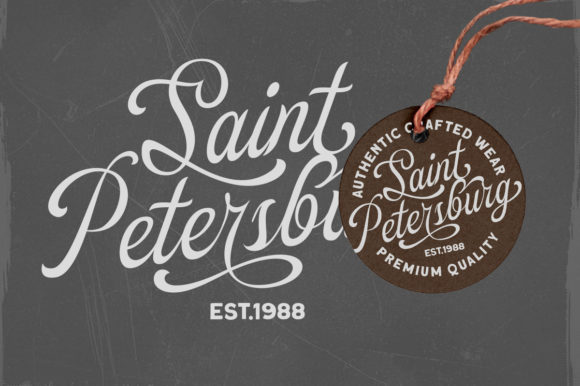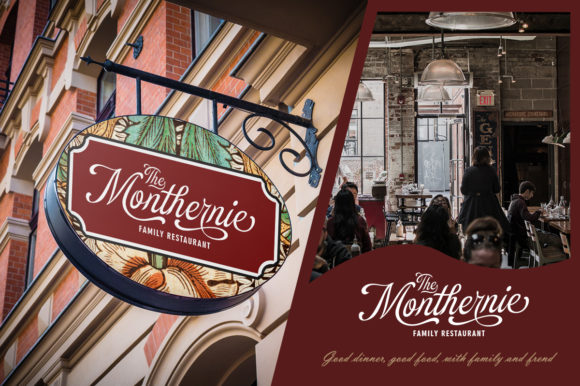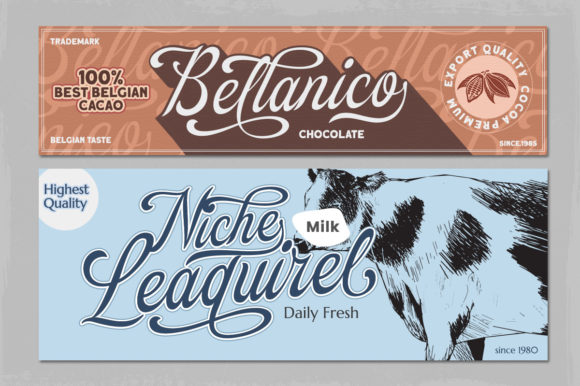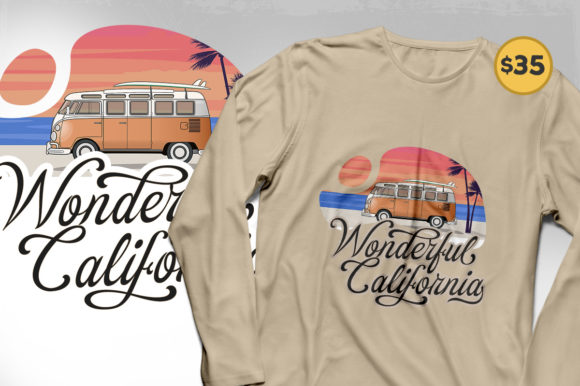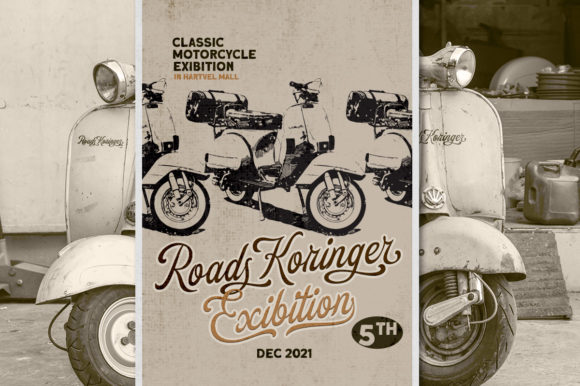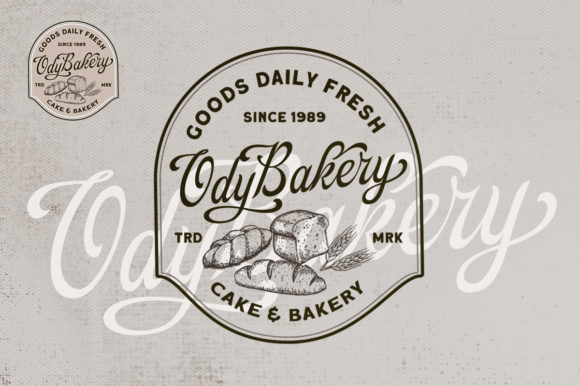
Introducing Greybridge Font: A Timeless Vintage Beauty for Your Designs
In the world of typography, fonts play a crucial role in conveying the tone and personality of a design. For designers and crafters looking to add a touch of elegance and sophistication to their work, the Greybridge font is an excellent choice. This beautiful, vintage-styled handwritten font is perfect for a wide range of design projects, from invitations and thank you cards to logos, business cards, and more.
The Charm of Greybridge Font
Greybridge font boasts a unique, handcrafted charm that sets it apart from other fonts. Its vintage style and elegant script make it an ideal choice for designers who want to add a touch of classic sophistication to their work. The font’s beautiful, flowing lines and delicate curves create a sense of movement and fluidity, making it perfect for designs that require a personal touch.
One of the best things about Greybridge font is its versatility. It can be used for a wide range of design projects, including:
- Invitations: Whether you’re designing wedding invitations, birthday party invites, or baby shower announcements, Greybridge font is the perfect choice.
- Thank You Cards: Add a touch of elegance to your thank you cards with this beautiful font.
- Quotes: Use Greybridge font to create stunning quote graphics that are perfect for social media, blogs, or websites.
- Greeting Cards: From Christmas cards to get well cards, Greybridge font is perfect for creating beautiful, heartfelt greetings.
- Logos: Add a touch of sophistication to your logo designs with this elegant font.
- Business Cards: Use Greybridge font to create professional, stylish business cards that make a lasting impression.
Why Choose Greybridge Font?
So why choose Greybridge font for your design projects? Here are just a few reasons:
- Unique and Elegant: Greybridge font is a one-of-a-kind font that adds a touch of elegance and sophistication to any design.
- Versatile: This font can be used for a wide range of design projects, from invitations and greeting cards to logos and business cards.
- Easy to Read: Despite its elegant script, Greybridge font is easy to read, making it perfect for designs that require a clear, concise message.
- High-Quality: This font is designed with high-quality craftsmanship, ensuring that it looks great in any design.
Tips for Using Greybridge Font
In conclusion, Greybridge font is a beautiful, vintage-styled handwritten font that’s perfect for designers and crafters looking to add a touch of elegance and sophistication to their work. Its versatility, unique charm, and high-quality craftsmanship make it an excellent choice for a wide range of design projects. Whether you’re designing invitations, logos, or business cards, Greybridge font is sure to make your designs stand out.